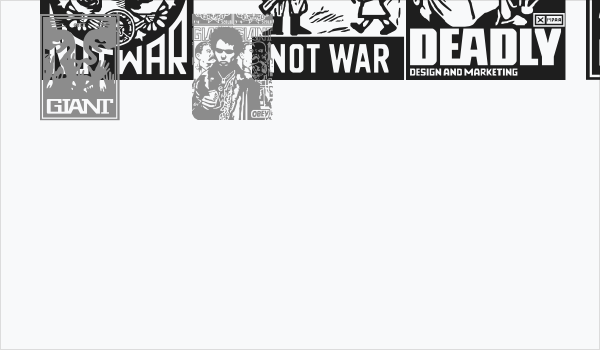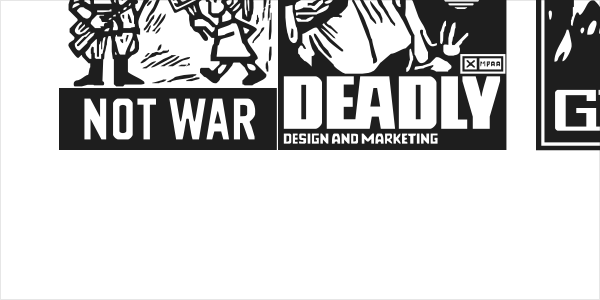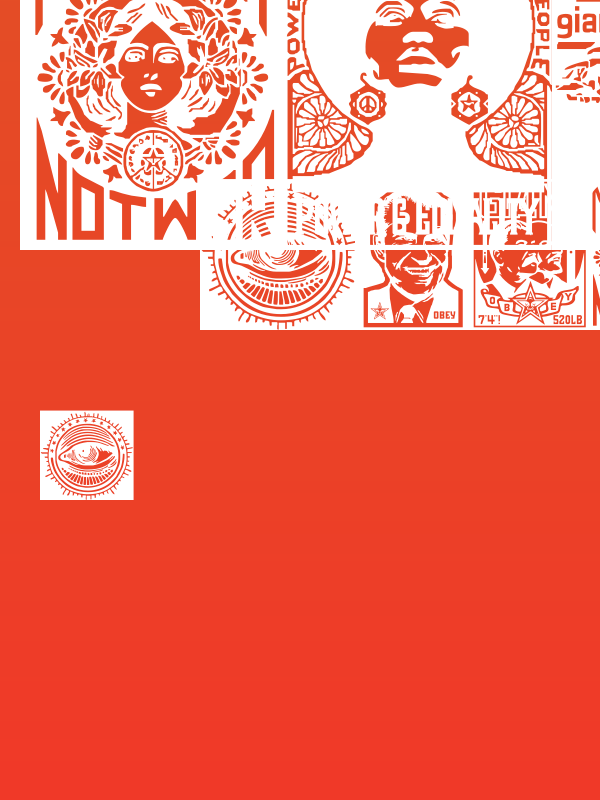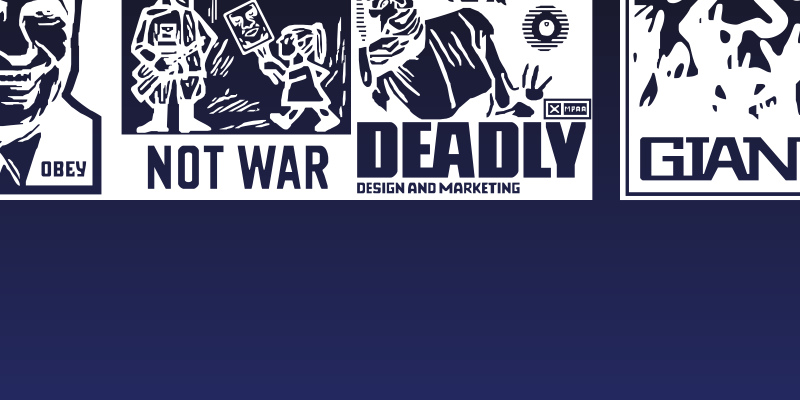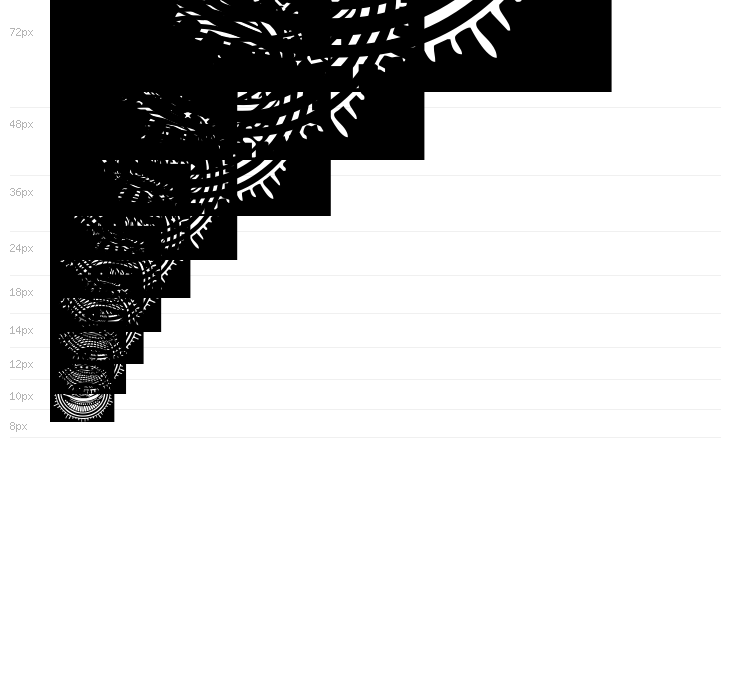
ObeyXL1Caps Font
ObeyXL1Caps Description
This is a decorative display typeface composed entirely of bold, high-contrast graphic illustrations and poster-style images, each representing a different character or symbol. The style is reminiscent of street art and propaganda posters, with heavy use of black and white, strong lines, and visually impactful imagery.
| Overall Style | Decorative, Urban, Propaganda-inspired |
| Use Case | Headlines, Posters, Artistic projects, Logos |
| Proposed Projects | Posters, album covers, event flyers, street art projects, branding for edgy or counterculture brands. |